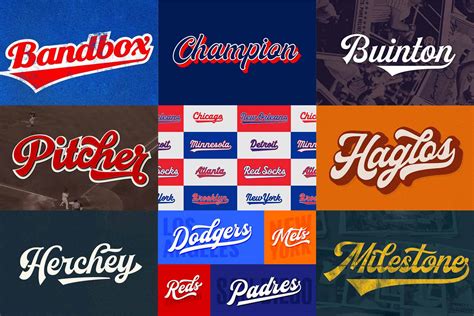
Best Fonts For Your Baseball Jersey
Best Fonts for Your Baseball Jersey
Hey baseball fanatics! Ever looked at a killer baseball jersey and thought, “Man, I wish my team’s gear looked that good?” Well, a huge part of that awesome look comes down to the font you choose for your lettering and numbers. Picking the right font can totally transform your jersey from drab to fab, making it pop on the field or in the stands. We’re talking about making a statement, showing off your team’s pride, and just looking plain cool. So, let’s dive into the nitty-gritty of selecting the absolute best fonts for your baseball jersey. We’ll explore different styles, what makes them work, and how to make sure your chosen typeface screams ‘championship material’. Get ready to upgrade your jersey game, guys!
Why Font Choice Matters for Baseball Jerseys
Alright, guys, let’s get real for a sec. When you’re picking out a baseball jersey, you’re not just choosing fabric and colors; you’re building a piece of identity. And a massive chunk of that identity? It’s the font . Seriously, think about it. That bold number on the back, the team name across the chest – these are the visual anchors of your jersey. A killer font makes all the difference. It can project power, speed, tradition, or even a bit of that underdog grit. For instance, imagine a classic, bold serif font for a historic team name. It just feels right, right? It whispers tales of past glories and established legacies. On the flip side, a sleek, modern sans-serif font can give a newer team an edge, suggesting agility and forward-thinking energy. This is especially true for baseball where tradition and innovation often walk hand-in-hand. You want your jersey to be legible from a distance – coaches need to spot players, fans want to cheer them on by name. A font that’s too complex or thin might get lost in the action. That’s why readability is king, but it doesn’t mean you have to sacrifice style. It’s about finding that sweet spot where your font is both striking and super clear. Think about the overall vibe you want for your team. Are you aiming for that old-school, vintage feel that harks back to Babe Ruth era? Or are you going for a futuristic, aggressive look that says you’re here to dominate? The font is your primary tool for communicating this. It sets the tone before anyone even throws a pitch. Plus, let’s not forget the durability factor. Some fonts, especially those with intricate details, might not hold up as well to the rigors of the game and repeated washing. We want a font that looks sharp game after game, season after season. So, when you’re browsing through options, always keep these factors in mind: impact, readability, team identity, and longevity . It’s not just about picking letters; it’s about choosing the visual voice of your team.
Classic & Traditional Baseball Jersey Fonts
When we talk about classic baseball jersey fonts , we’re usually talking about styles that have stood the test of time, embodying the rich history and deep-rooted traditions of the game. These are the fonts that make you think of the crack of the bat, the roar of the crowd, and legendary players. The undisputed king in this category has to be the varsity or collegiate font . You know the one – bold, blocky, often with a slight italic slant, and sometimes featuring a distinctive outline. This style is practically synonymous with baseball and American sports in general. It exudes a sense of authority, pride, and belonging. Think of those iconic jerseys from the golden age of baseball; many of them featured variations of this robust typeface. It’s incredibly readable, even from the cheapest seats in the stadium, and its straightforward, no-nonsense design communicates strength and determination. Another perennial favorite is the block serif font . These fonts have those little feet (the serifs) at the ends of the strokes, giving them a more formal and established feel. They can add a touch of sophistication and gravitas to your team’s name. While maybe not as common on the field as the varsity style, they can be a fantastic choice for team names or special edition jerseys where you want to convey a sense of heritage and prestige. Often, these traditional fonts are paired with a contrasting outline – usually a thin white or black line – to make them really pop against the jersey fabric. This technique enhances visibility and adds a professional, polished finish. The key here is boldness and clarity . You want letters that are substantial enough to be seen and recognized easily, even when a player is in full sprint or mid-dive. Avoid anything too thin, overly decorative, or script-like if you’re going for that authentic, traditional baseball vibe. These fonts aren’t just about aesthetics; they’re about tapping into the soul of the sport. They connect your team to the generations of players and fans who have come before, creating a tangible link to the history and spirit of baseball. When you choose a classic font, you’re not just designing a jersey; you’re continuing a legacy. So, if your team aims to honor the roots of the game and project a timeless sense of pride, sticking with these tried-and-true styles is a home run every time.
Modern & Sporty Baseball Jersey Fonts
Alright, let’s switch gears and talk about the rebels, the innovators – the modern and sporty fonts for your baseball jersey. These are the typefaces that scream speed, power, and a forward-thinking attitude. If your team is all about making a statement and leaving the competition in the dust, then this is where you want to play. One of the most popular choices in this realm is the athletic sans-serif font . Think clean lines, geometric shapes, and a generally no-frills approach. These fonts are designed for maximum impact and legibility in fast-paced environments. They often have a slightly wider stance or bolder strokes than your average text font, giving them that athletic punch. Many modern athletic fonts also incorporate sharp edges or subtle curves that add a dynamic flair, suggesting agility and precision. They’re perfect for names like ‘The Tigers’, ‘Velocity’, or any team name that needs to convey a sense of raw energy. Another cool trend is the use of stencil fonts . These fonts have gaps or breaks within the letterforms, mimicking the look of stencils used for marking. They give off a rugged, industrial, and undeniably cool vibe. Stencil fonts can be incredibly effective for team names, conveying a sense of toughness and a DIY spirit. They’re great for teams that want to project a more aggressive or rebellious image. We’re also seeing a lot of italicized or slanted sans-serif fonts that add a sense of forward motion and dynamism. A sharp, aggressive slant can make your jersey look like it’s moving even when it’s standing still, which is perfect for a sport like baseball where speed is key. These fonts often have a slightly more condensed feel, which can allow for longer team names to fit comfortably without looking cramped. When choosing a modern font, don’t be afraid to experiment with unique character details . Some athletic fonts might have unique cuts in the letters, unusual number designs, or slightly unconventional shapes that make them stand out from the crowd. Just remember, while these fonts are stylish, readability is still paramount . Ensure the unique elements don’t hinder the legibility from a distance. Contrast is also your friend here. Pairing a sleek, modern font with a bold outline or a contrasting color can make it even more impactful. Think about the personality of your team. Are you a powerhouse known for crushing home runs? Or a scrappy team that plays with relentless hustle? Your modern font choice should reflect that. It’s your chance to give your jersey a contemporary edge and make it unforgettable.
Custom & Unique Baseball Jersey Font Ideas
Guys, let’s talk about taking your baseball jersey from awesome to absolutely legendary. We’ve covered the classics and the modern sporty looks, but what if you want something truly one-of-a-kind? That’s where custom and unique baseball jersey fonts come into play. This is your chance to inject serious personality and make your team instantly recognizable. Think outside the box! One fantastic avenue is custom-designed lettering . Instead of picking something off the shelf, work with a designer to create a font that’s literally made for your team. This could involve incorporating specific team elements – maybe the shape of your mascot into the letters, or weaving in elements of your logo. Imagine ‘Eagles’ with the E’s having subtle wing-like serifs, or ‘Sharks’ where the ’S’ has a fin-like curve. The possibilities are endless, and the result is a jersey that is undeniably yours . Another approach is to explore hand-drawn or brush script fonts . While many script fonts can be hard to read on a jersey, a well-executed hand-drawn or brush script font can offer a unique, artistic flair. These often have a more organic, fluid feel, suggesting movement and passion. They can be fantastic for team names that evoke a sense of energy or community. You just need to make sure they are bold enough and have clear letterforms to remain legible from afar. Don’t go too thin or overly ornate! Consider vintage-inspired or retro fonts that aren’t the standard varsity. Think fonts from old signage, defunct sports leagues, or even old movie posters. These can give your jersey a distinctive, nostalgic feel without being cliché. Sometimes, a quirky slab serif or a unique decorative font from a bygone era can make a huge impact. Another way to achieve uniqueness is through creative font pairings . You could use a bold, block font for the team name and a more stylized, perhaps slightly condensed font for the player names. Or vice versa! The key is to ensure the fonts complement each other and don’t clash. They should work together to create a cohesive, eye-catching design. Remember, the goal with custom and unique fonts is to create something memorable. It’s about telling your team’s story visually. Whether it’s through custom illustrations within the letters, a unique stylistic choice, or a font that perfectly captures your team’s spirit, these options allow you to break the mold and create a jersey that truly stands out from the pack. It’s your canvas, guys, so get creative and make it count!
Tips for Choosing the Right Baseball Jersey Font
Alright, team, we’ve explored a bunch of awesome font styles for your baseball jerseys, but how do you actually nail down the perfect one? It’s not just about picking what looks cool on a screen; it’s about making sure it performs on the jersey. So, here are some essential tips to guide you through the process. First off, prioritize readability . I can’t stress this enough, guys. Your jersey needs to be seen and understood from a distance. This means avoiding fonts that are too thin, too condensed, overly decorative, or have confusing letterforms. Think about how it will look on the move – during a game, in bright sunlight, or even under stadium lights. Consider the sport itself . Baseball is a game of power, speed, and tradition. Does your chosen font reflect that? A font that looks good on a wedding invitation might be a total miss on a baseball jersey. Lean towards fonts with a solid, robust structure that convey energy and athleticism. Think about your team’s identity and brand . Are you a long-established club with a storied past, or a new squad looking to make a name for yourselves? Your font should align with your team’s personality. A classic serif might be perfect for a historical team, while a bold, modern sans-serif could be ideal for a team focused on the future. Test it out! Don’t just look at the font in isolation. Get a mock-up of your jersey with the font applied. See how it looks on the actual colors you plan to use. How does the font interact with any other graphics or logos on the jersey? Does it create enough contrast? Sometimes, a font looks great on paper but fails to deliver when rendered on fabric. Factor in application method . Different fonts might be better suited for different application methods like screen printing, embroidery, or heat transfer. For instance, very intricate or thin fonts might not hold up well with certain embroidery techniques. Ask your jersey provider about the best font choices for their specific application methods. Don’t forget the numbers! Your jersey numbers are just as important as the names. Ensure they complement the font used for the team name and player names. Often, numbers share the same font family or have a complementary design. Keep it consistent . Stick to one or two font families for your entire jersey design. Using too many different fonts can make your jersey look cluttered and unprofessional. A clean, consistent look is always a winner. Finally, get feedback . Show your potential font choices to your teammates, coaches, or even a focus group of fans. Sometimes, an outside perspective can highlight issues you might have overlooked. By following these tips, you’ll be well on your way to choosing a font that not only looks fantastic but also enhances your team’s presence on and off the field. Happy designing, everyone!
Conclusion: Score a Home Run with Your Font Choice
So there you have it, guys! Choosing the right font for your baseball jersey is way more than just picking some letters; it’s a crucial element in defining your team’s visual identity and projecting the right attitude. Whether you’re leaning towards the timeless appeal of classic fonts that echo the sport’s rich history, the dynamic energy of modern athletic styles , or the unforgettable uniqueness of custom designs , there’s a perfect typeface out there waiting to elevate your game. Remember the key takeaways: legibility is non-negotiable , your font should reflect your team’s spirit , and testing your choices on a mock-up is essential. A well-chosen font can make your jersey instantly recognizable, instill pride in your players, and even intimidate your opponents just a little bit! Don’t underestimate the power of typography to make a statement. It’s the visual voice of your team, shouting loud and proud from the pitcher’s mound to the outfield fence. So, go forth, explore the options, get creative, and make sure your next baseball jersey scores a grand slam in the style department. Now get out there and play ball with pride!